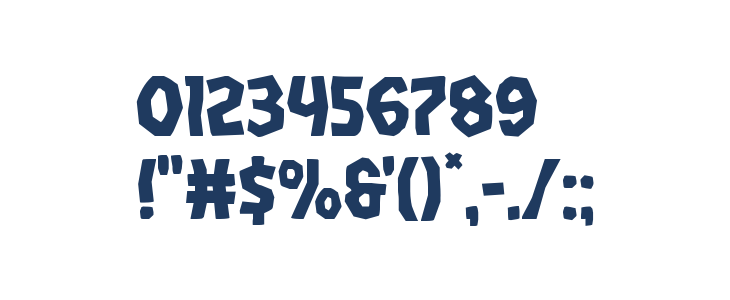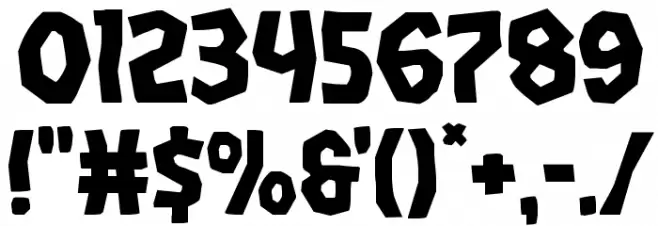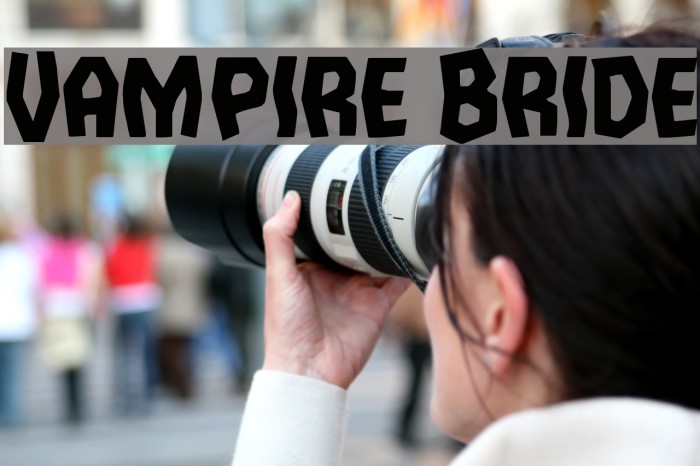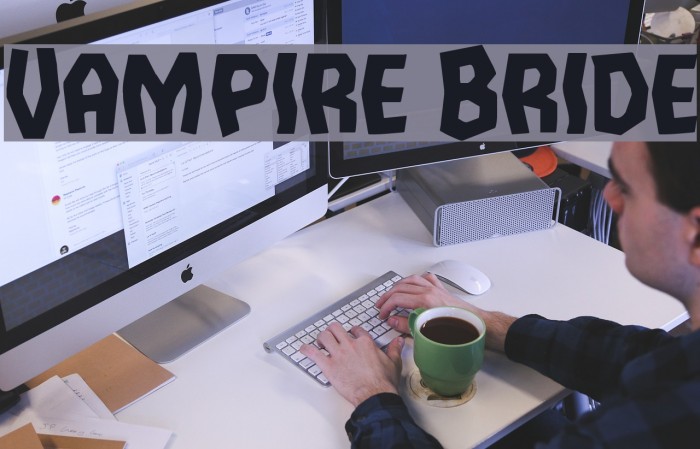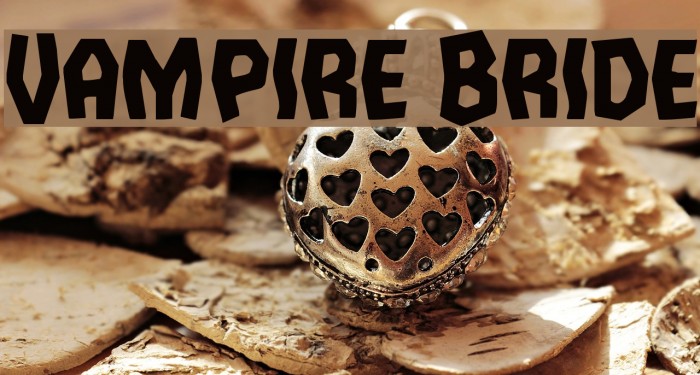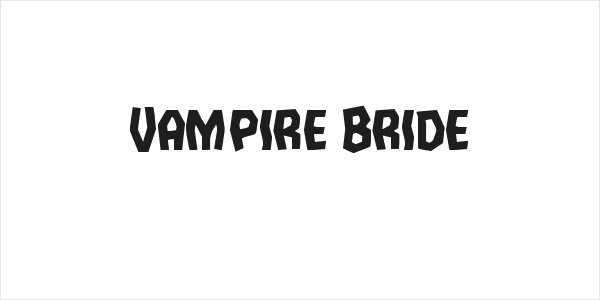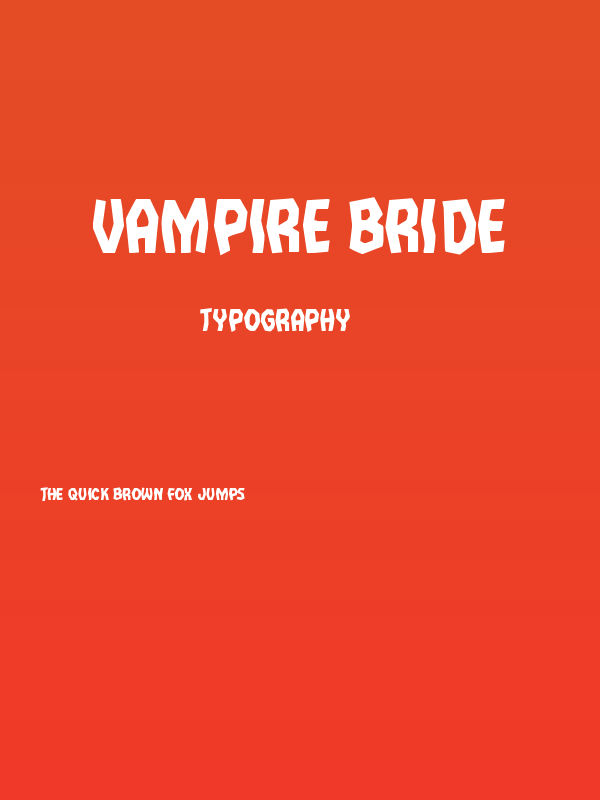
Vampire Bride Font
Vampire Bride Description
This font features a bold and jagged style, reminiscent of classic horror themes. The characters have an uneven, hand-drawn appearance, giving them a unique and edgy look. The uppercase and lowercase letters maintain a consistent style, with sharp angles and irregular edges that create a sense of movement and energy. The numbers and special characters follow the same aesthetic, ensuring a cohesive design throughout. This font is ideal for projects that require a dramatic and eye-catching typeface, such as posters, book covers, or Halloween-themed events.